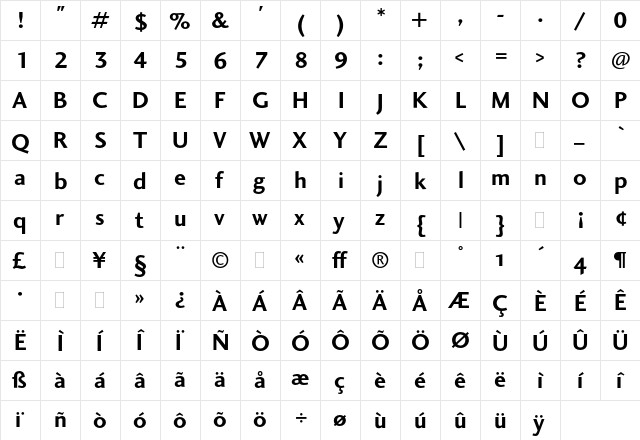
Charlotte Sans Bold Plain
Design Context for Charlotte Sans Bold Typeface
Charlotte Sans Bold is a composed and adaptable typeface that performs quietly and consistently across a wide range of design contexts. Its bold stroke weight gives it real presence on the page.